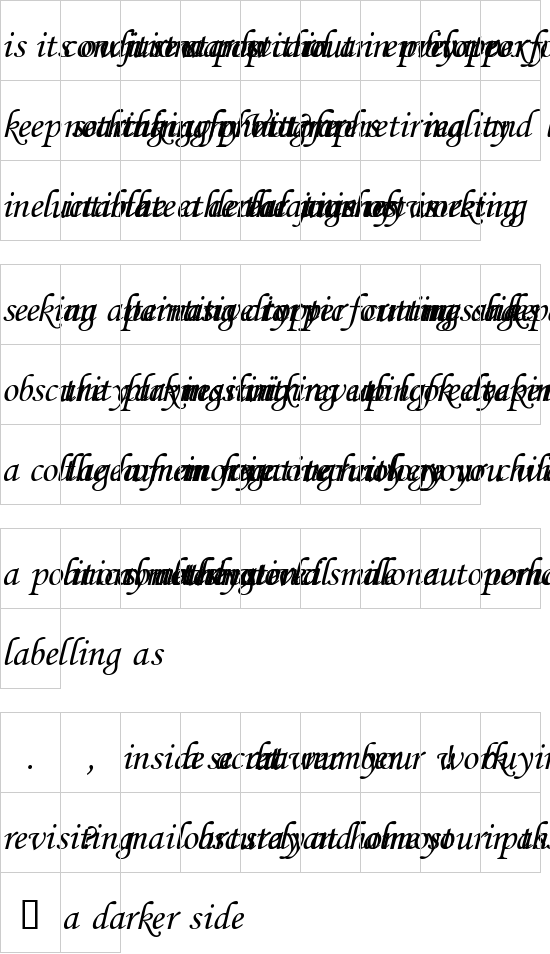
Obscure Actions
About Obscure Actions
Obscure Actions has a mysterious, unconventional character, with distinctive letterforms that feel cryptic and offbeat. The shapes resist easy categorization, carrying unusual proportions and quirks that give the alphabet an enigmatic, slightly alien personality. It reads as deliberately strange and intriguing.
Use it for indie album covers, experimental posters, alternative branding, and headlines that want an enigmatic, unusual personality. The offbeat forms make memorable standout phrases. Obscure Actions is free to download as a TrueType file, and you can preview your own text to see how the cryptic letters set before using them in a layout.